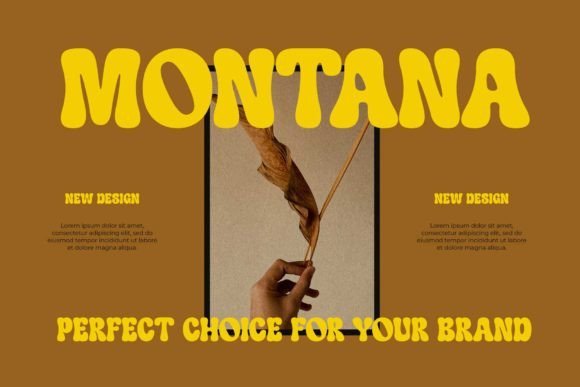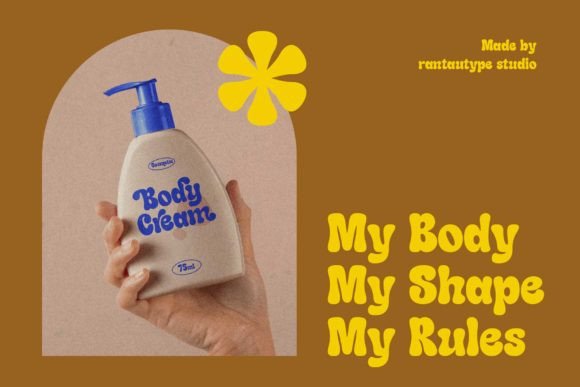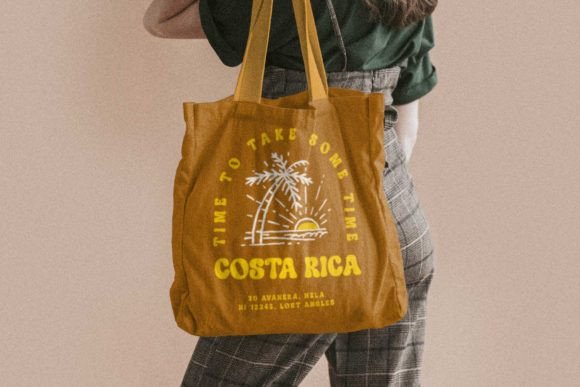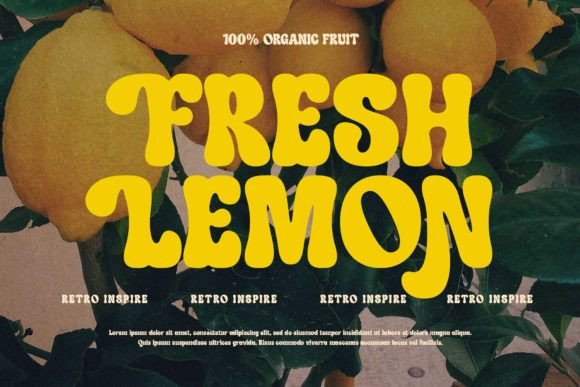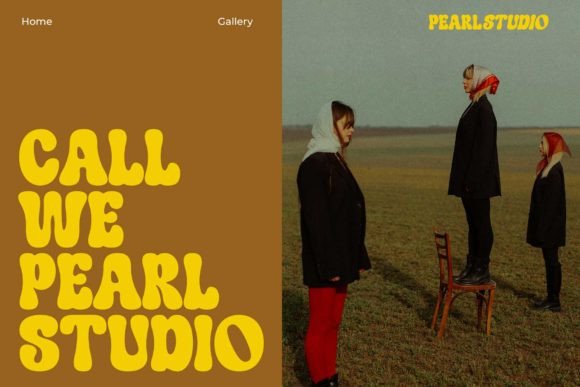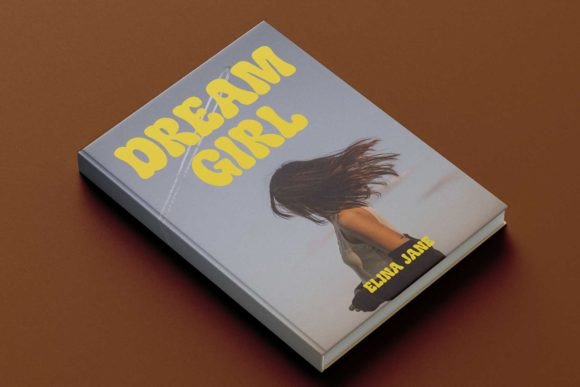
Introduction to Regina Light Font
Proudly present a retro fun look font called Regina Light.
Regina Light is a retro font that has bold and soft curves that make it look fun, unique, classic, and versatile serif Font Come with more alternate and ligature you can mix and max to create a more stunning display.